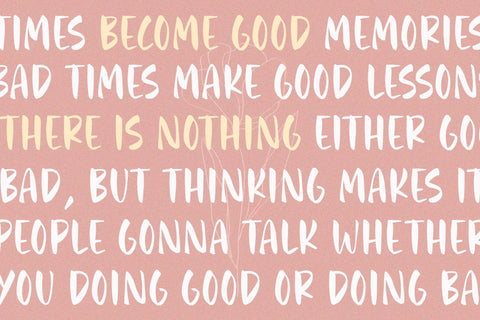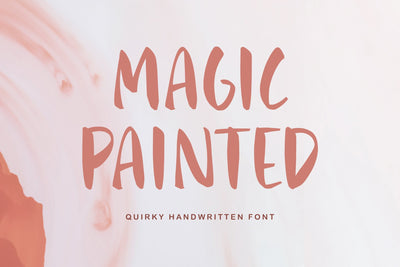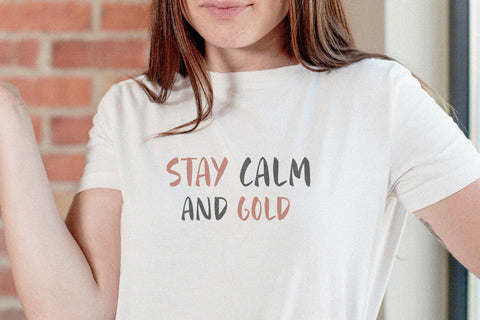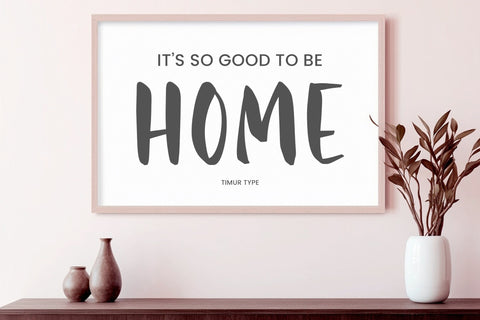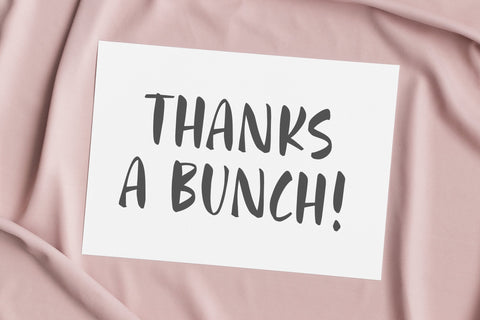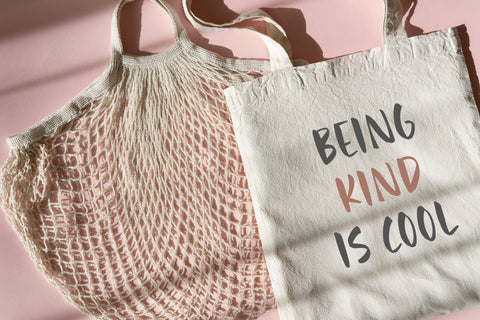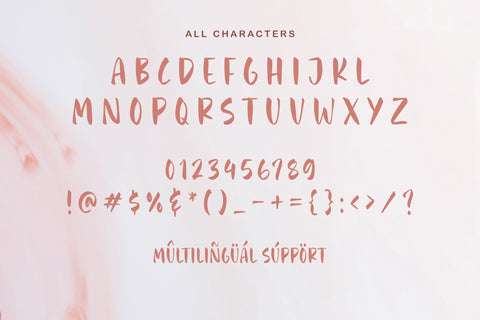
Magic Painted - Quirky Handwritten Font
Introducing by Timur type
Proudly Present, Magic Painted
Magic Painted A Quirky Handwritten Font , which was created with great care and specially created for you,
Magic Painted is perfect for product packaging, branding project, megazine, social media, wedding, or just used to express words above the background.